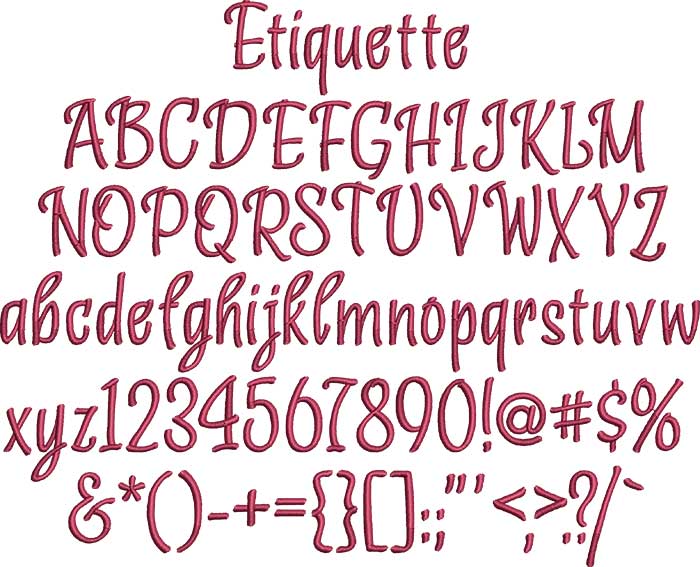
BX Embroidery Font: Etiquette
BX Embroidery Font: Etiquette (4 sizes) is a casual, upright script machine embroidery font that includes A-Z, a-z, 0-9 and punctuation.
BX embroidery font:
Etiquette (4 sizes) is a casual, upright script machine embroidery font that includes A-Z, a-z, 0-9 and the following punctuation: `!@#$%&*()-+={}[]|:;”‘<>,.?/ (91 total characters per size).
Each character in this alphabet is individually manually digitized; we do not use a TrueType to Stitches conversion utility to create our fonts. Additionally, stitch attributes such as stitch type, density, compensation, and underlay are optimized for each size available. Choose the size closest to what you need. Shrinking the smallest size is not recommended.
Our fonts were manually digitized; we do not use a TrueType to Stitches conversion utility to create our fonts. Plus, stitch attributes such as density, compensation, and underlay are optimized for each size available.